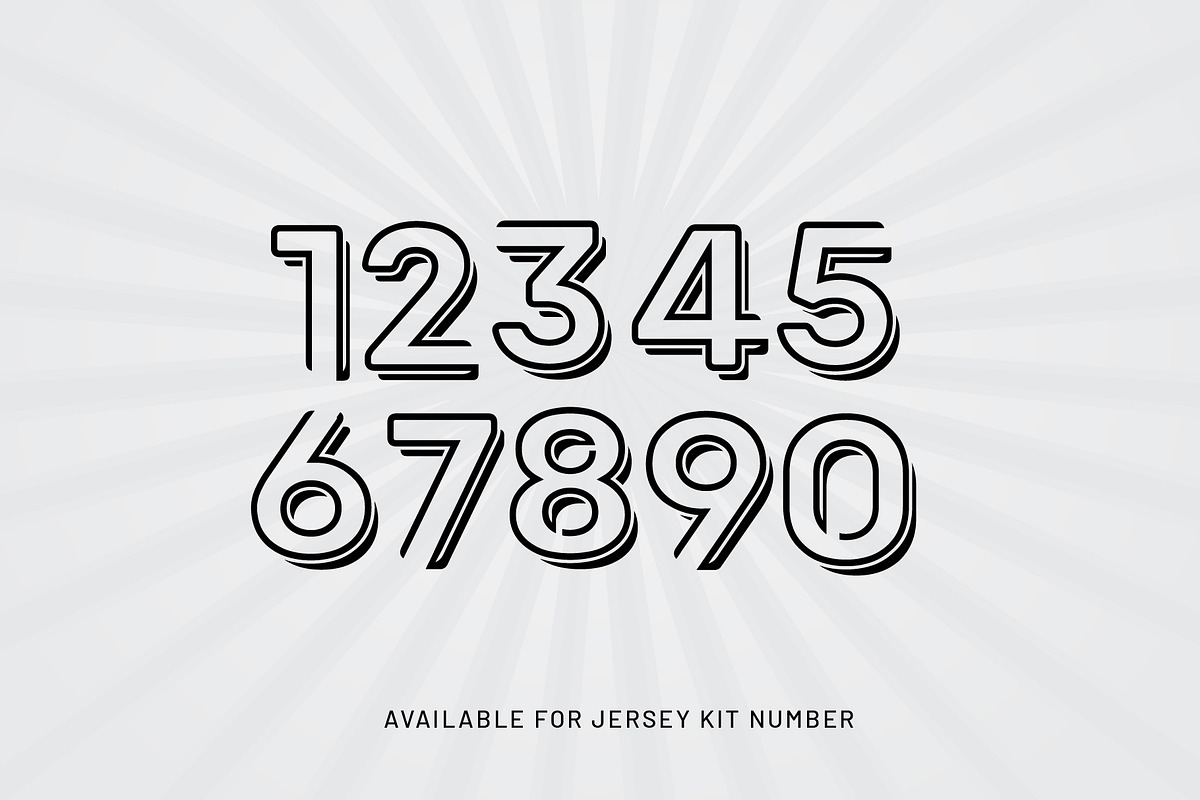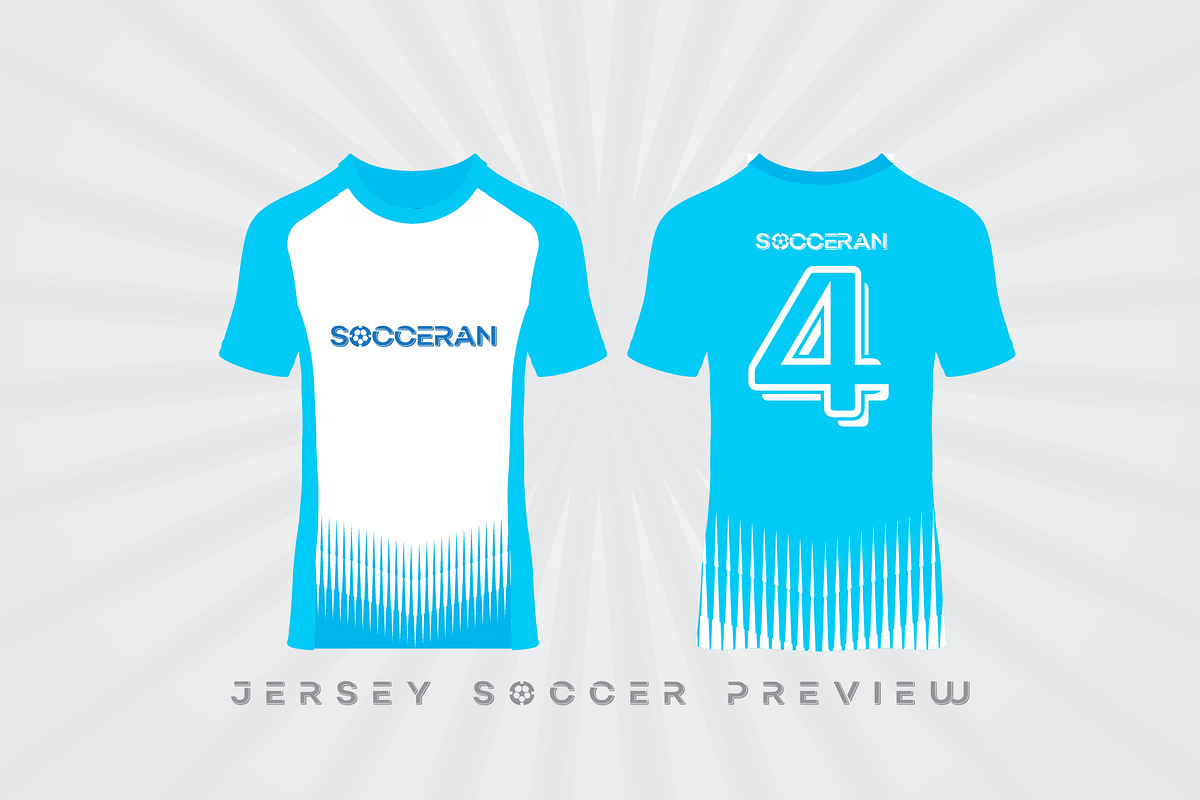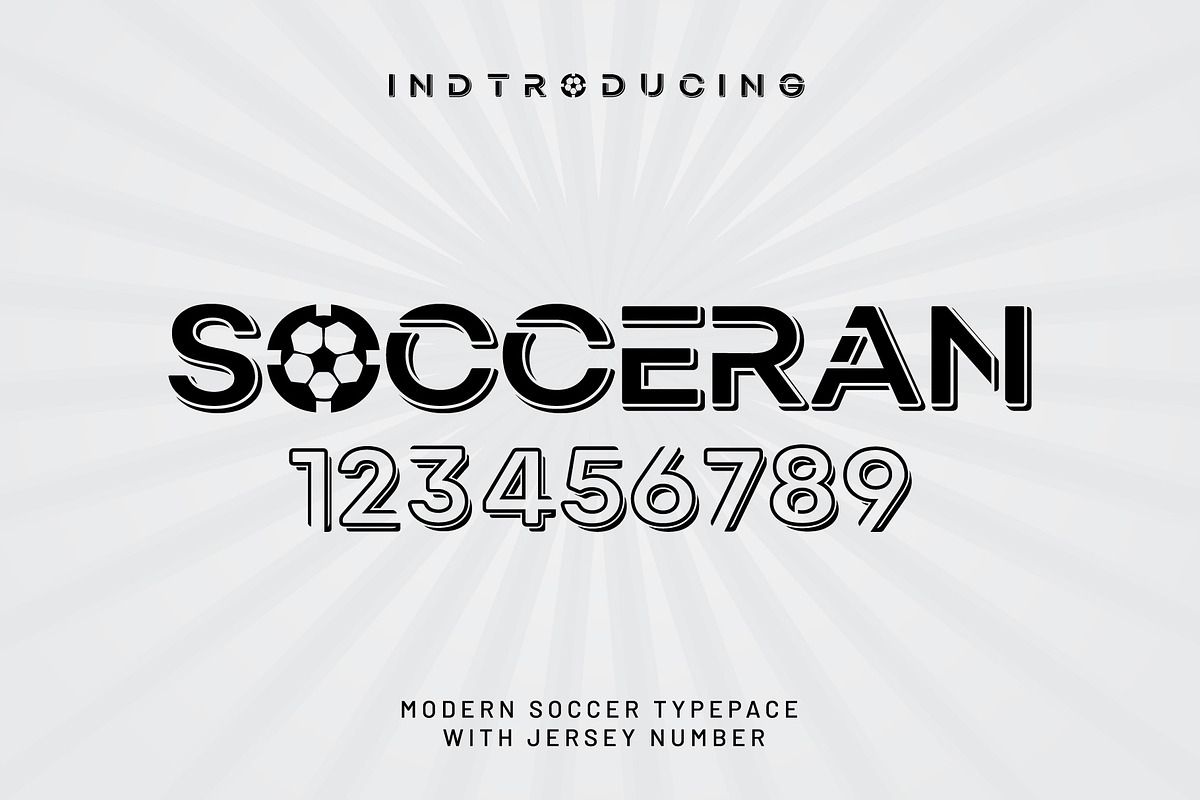
Socceran - Jersey kit display
Socceran font from Indranesia is great for your custom jersey design. all fonts are uppercase and with unique jersey number. Content Description:
- Uppercase font